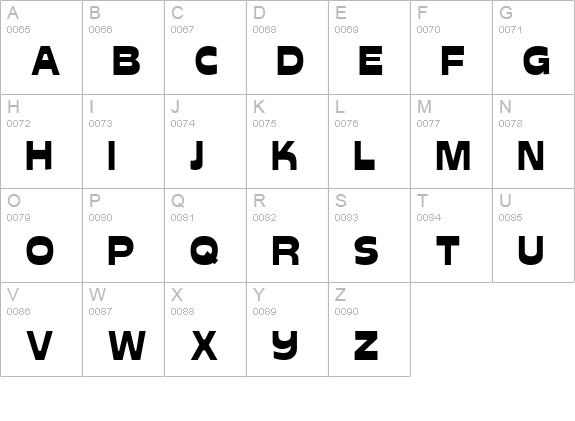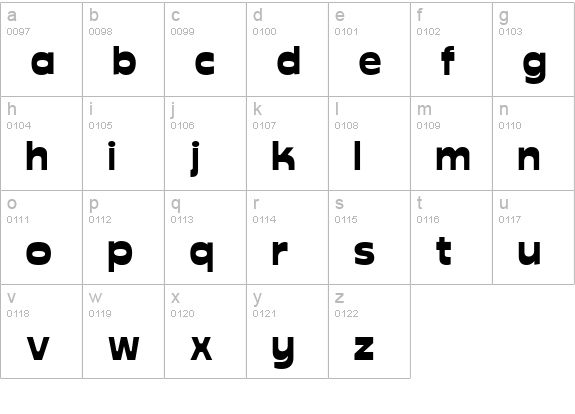
Glockenspiel Regular Font Details
Glockenspiel Regular is the standard, neutral variant in the Glockenspiel typeface family \xE2\x80\x94 well suited to general body text, paragraphs, and standard typographic work.
Glockenspiel Regular font is a charming and elegant typeface that exudes sophistication and modernity. With its clean lines and contemporary appeal, this font is perfect for a wide range of design projects, from branding to editorial design. The soft curves and precise spacing of Glockenspiel Regular give it a polished and professional look that is sure to elevate any design it is used in. What's even better is that Glockenspiel Regular font is available for free download at FontsMarket.com. This means that you can easily access this stylish font and incorporate it into your projects without any hassle. Whether you're working on a website, a poster, or a logo, Glockenspiel Regular is a versatile and eye-catching choice that will make your designs stand out. Download Glockenspiel Regular today and see the difference it can make in your creative work.